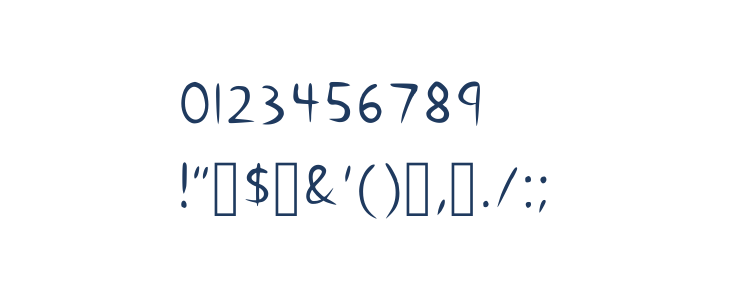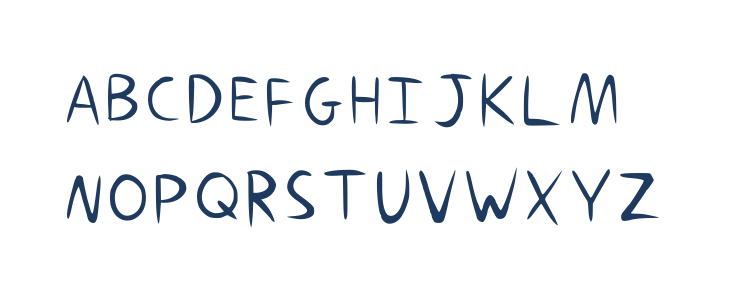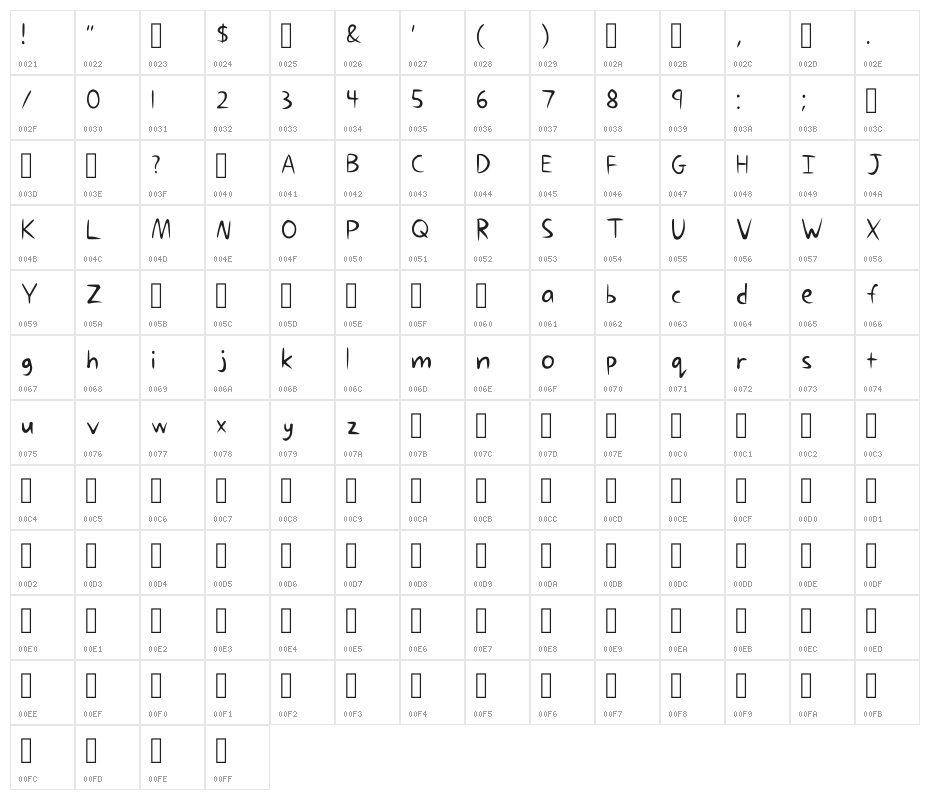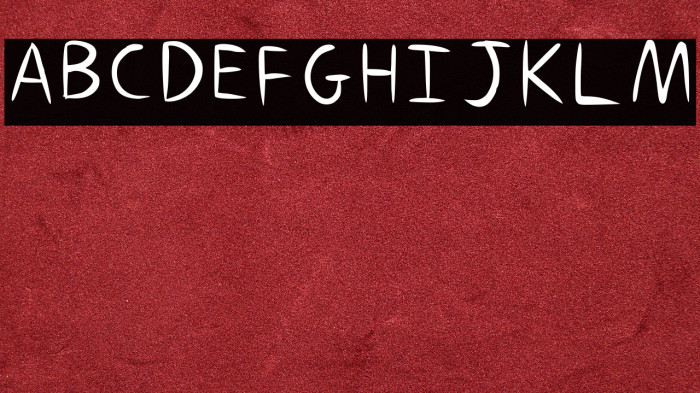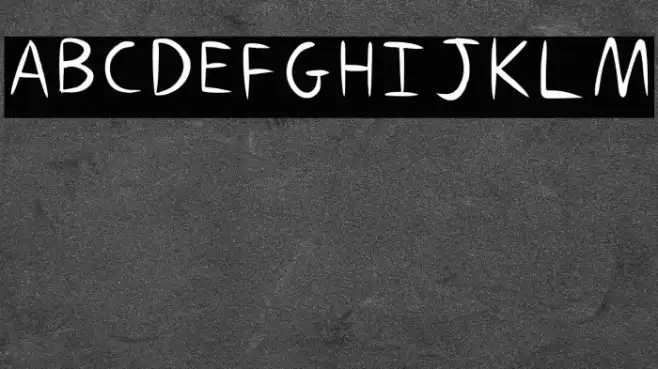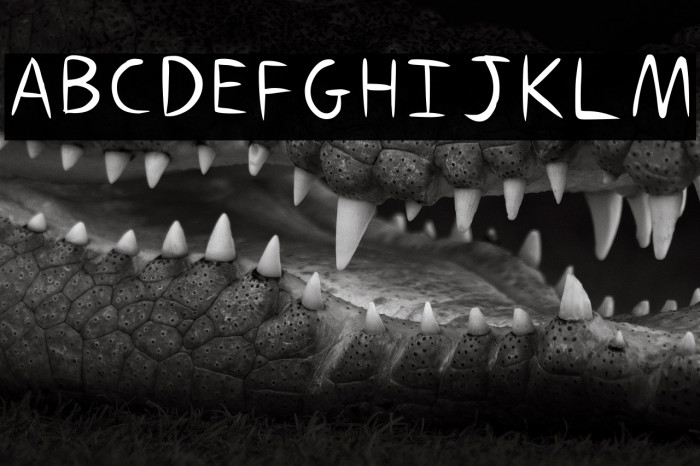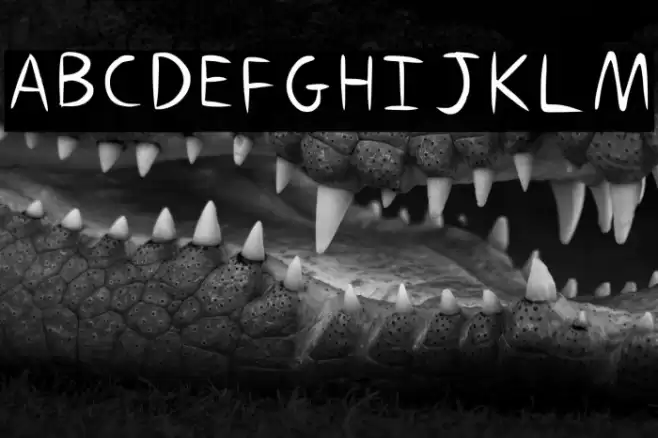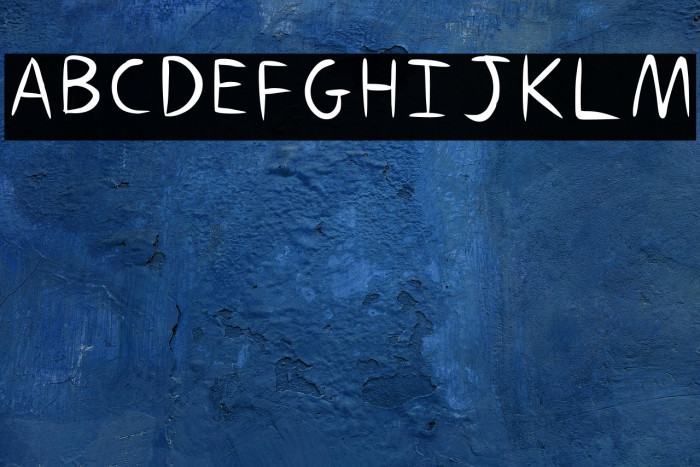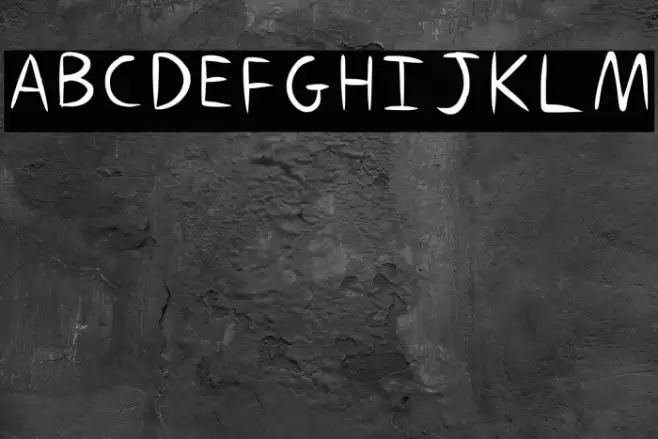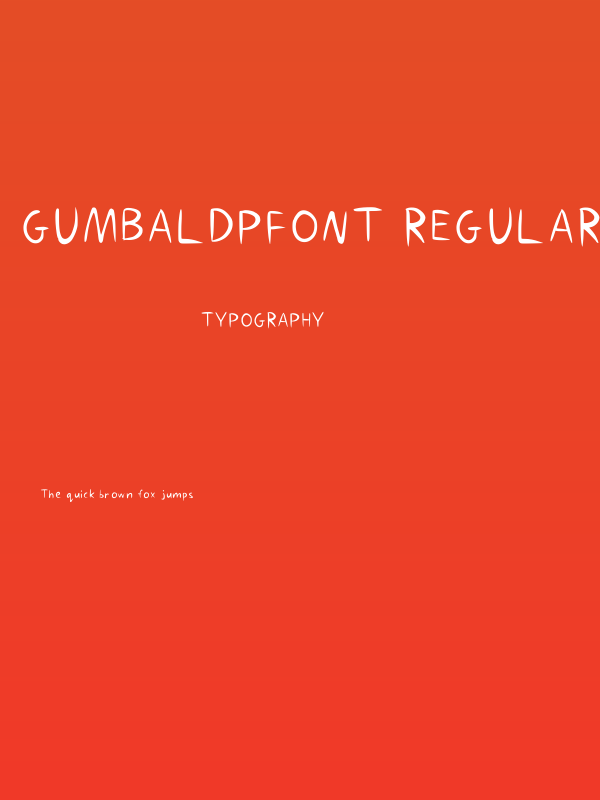
Gumbaldpfont Regular Font
Gumbaldpfont Regular Description
A playful, handwritten style font with irregular, casual letterforms and a friendly appearance.
| Overall Style | Casual, Playful, Informal |
| Use Case | Headlines, Body text, Invitations, Greeting cards |